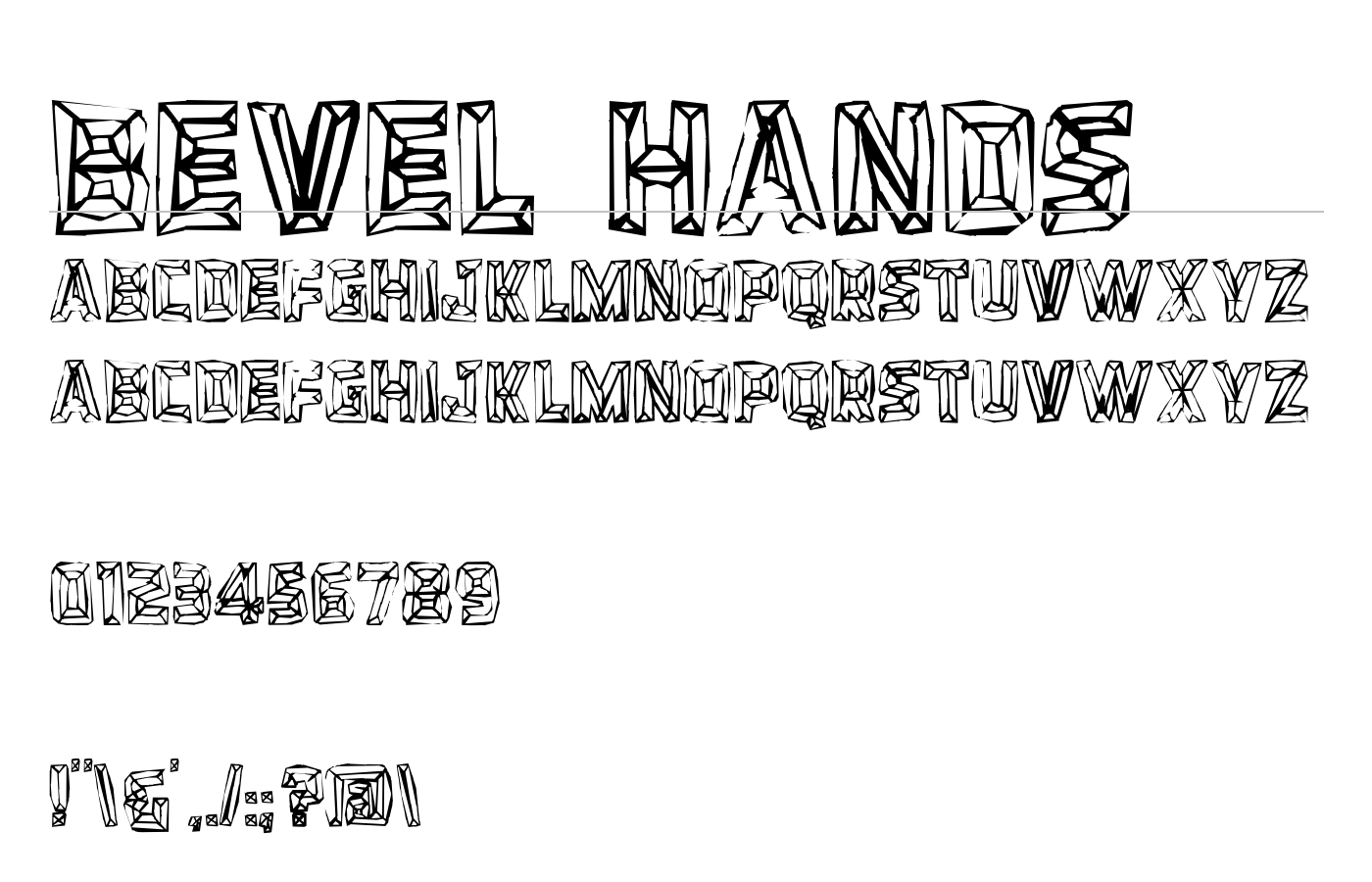
BEVEL HANDS is a bold, all-caps display font with a distinctive geometric, hand-drawn style that features intricate beveled edges and sharp, angular lines. Its edgy and dynamic character makes it ideal for creative, playful designs where a standout, unconventional look is desired, such as posters, logos, and artistic branding. This font adds a striking, modern flair while retaining a handcrafted, slightly rough charm.
BEVEL HANDS Font
About BEVEL HANDS Font